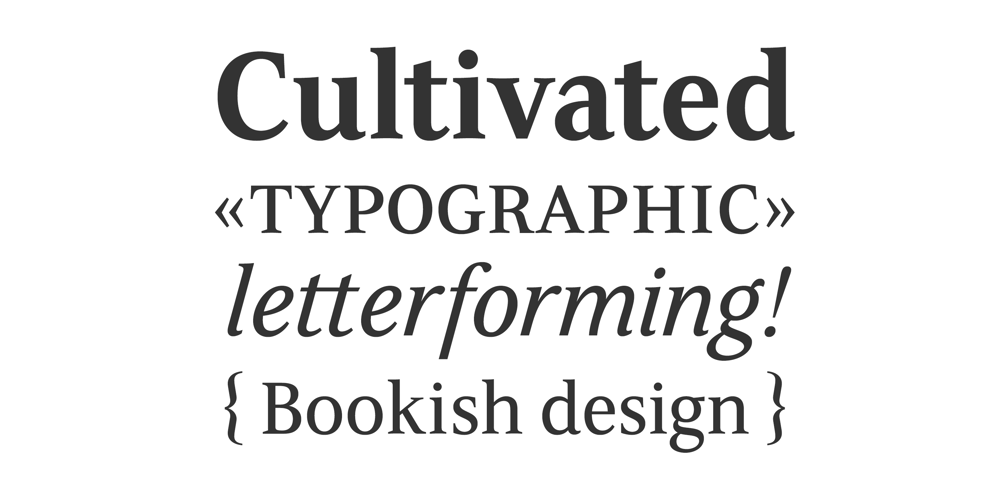
FS Sally
FS Sally font
FS Sally Font Family was designed by Jason Smith, Phil Garnham and published by Fontsmith. FS Sally contains 10 styles and family package options. BookishA little bit bookish, but quietly elegant and well-proportioned, FS Sally is a graceful font family. It’s a refreshingly uncomplicated design that brings sophistication to text and display type, and a distinctive aplomb to both large and small volumes of text.Hidden talentsThere’s more to FS Sally than meets the eye. Choose Standard for the Latin alphabet or Pro if you work with Cyrillic and Greek typography. There’s a large range of special features, including elegant small caps and a set of discretionary ligatures to add a traditional flavour to figures and fraction sets.RhythmicThere’s a rhythm and flow to FS Sally – the result of the classic but asymmetric design of its serifed feet and shoulders. The inward curve of the serif at the shoulder and the outward curve at the foot subliminally guide the eye through each letterform, and the flicked feet of the “a”, “d” and “u” add an extra kick of energy to the rhythm.The italic forms have their own flow, too, with a pen-like fluency that retains the formal discipline required for a text type.Regular to heavyFS Sally’s five weights, all with italics, cover every kind of print application. The regular weight is elegant in display and an easy read in longer texts. A subtle step up from the regular is the medium, which was created to deliver a stronger colour and finish in poorer printing conditions.The semibold offers a strong alternative to the regular at smaller sizes, and its intermediate feel suits it to sub-headings, title pages and calmer designs. The bold works excellently in book and title headings, and FS Sally Heavy lends weight and punch to poster headlines and logotypes.